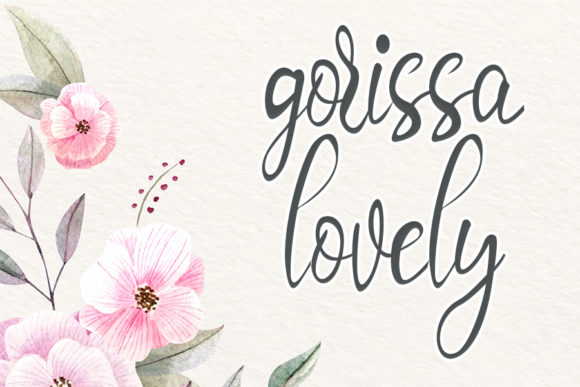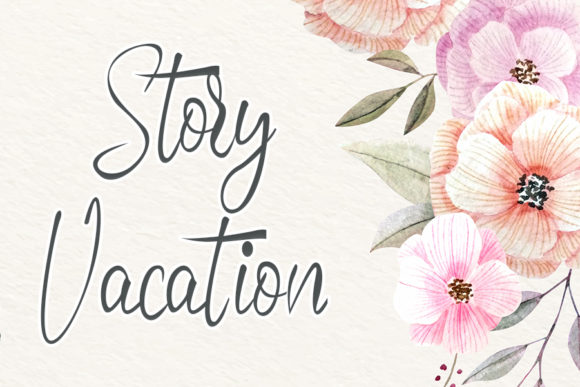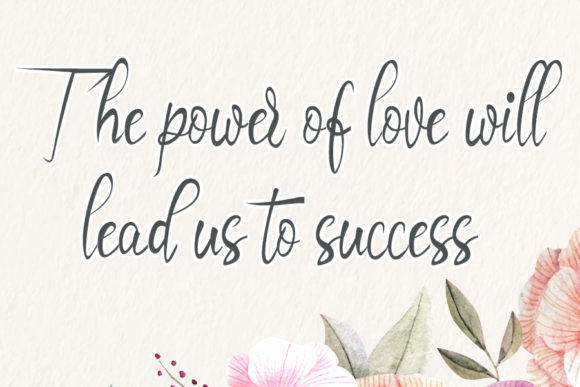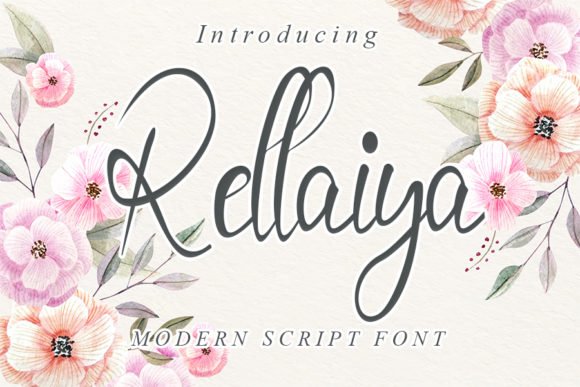
Introduction to Rellaiya Font
Rellaiya is a sweet and elegant calligraphy font.
Its distinct and well rounded letters make this font a real work of art Fall in love with its incredibly versatile style and use it to create lovely designs.
Key Features of Rellaiya Font
Why Choose Rellaiya Font?
Rellaiya Font offers exceptional quality and versatility, making it a valuable addition to your design toolkit. Whether you’re creating for personal projects or commercial use, Rellaiya Font delivers professional results.